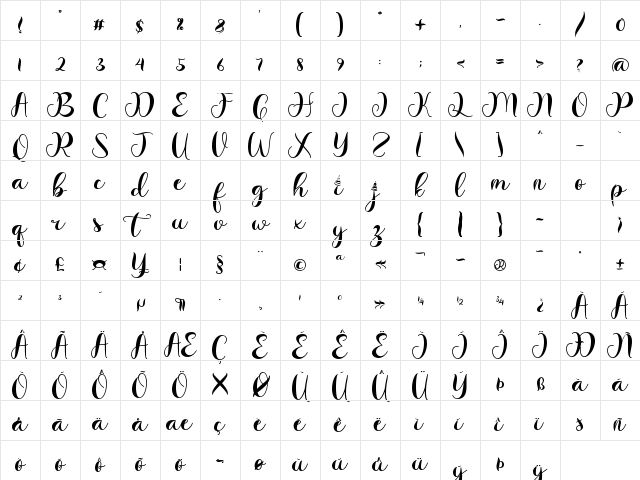
Complete Christmas Glitter Regular glyph index. Displaying only characters natively supported by Christmas Glitter Regular font.
Christmas Glitter is a composed and adaptable typeface that performs quietly and consistently across a wide range of design contexts.